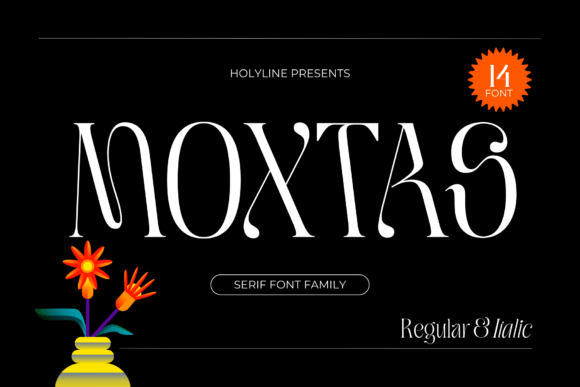
Unleash the captivating charm of Moxtas, a font family born from the fusion of elegance and playfulness. This extraordinary creation by Holyline Design presents a majestic range of seven weights, each accompanied by its italic counterpart, offering unparalleled versatility to your design endeavors.
Embark on a typographic journey where uniqueness and elegance intertwine seamlessly, giving life to breathtaking headlines, custom logos, and packaging designs that command attention. Express your heartfelt emotions through exquisite invitations, let your words dance gracefully on quotes, and elevate your digital presence with social media posts adorned with Moxtas' enchanting allure.
With Moxtas, the possibilities are limitless, inviting you to explore a world of creative expression. Its carefully crafted curves and delicate strokes evoke a sense of timeless sophistication, while its playful spirit adds a touch of whimsy to your designs.
Step into the realm of visual enchantment with Moxtas, the font that transforms ordinary words into captivating works of art. Let your imagination soar as you discover the endless possibilities it holds, unlocking a new chapter of design brilliance.